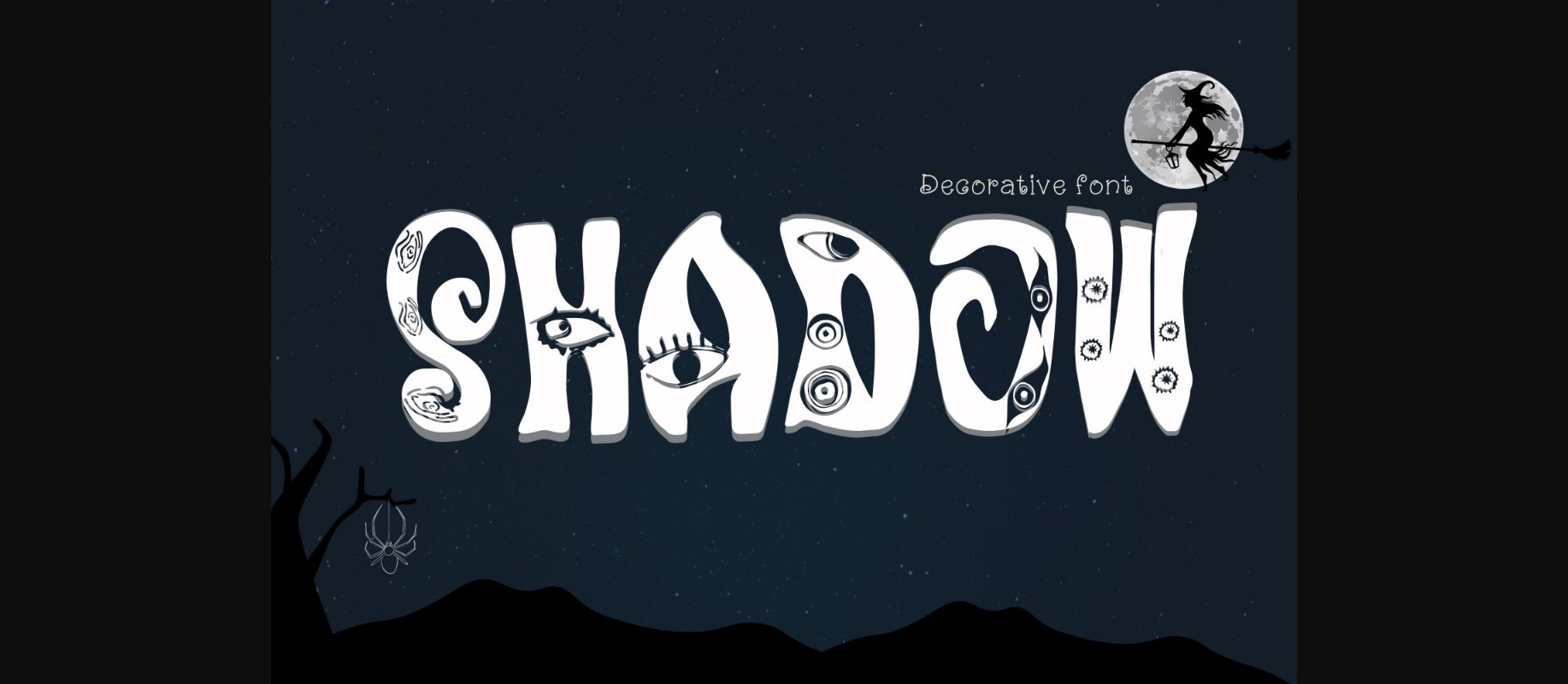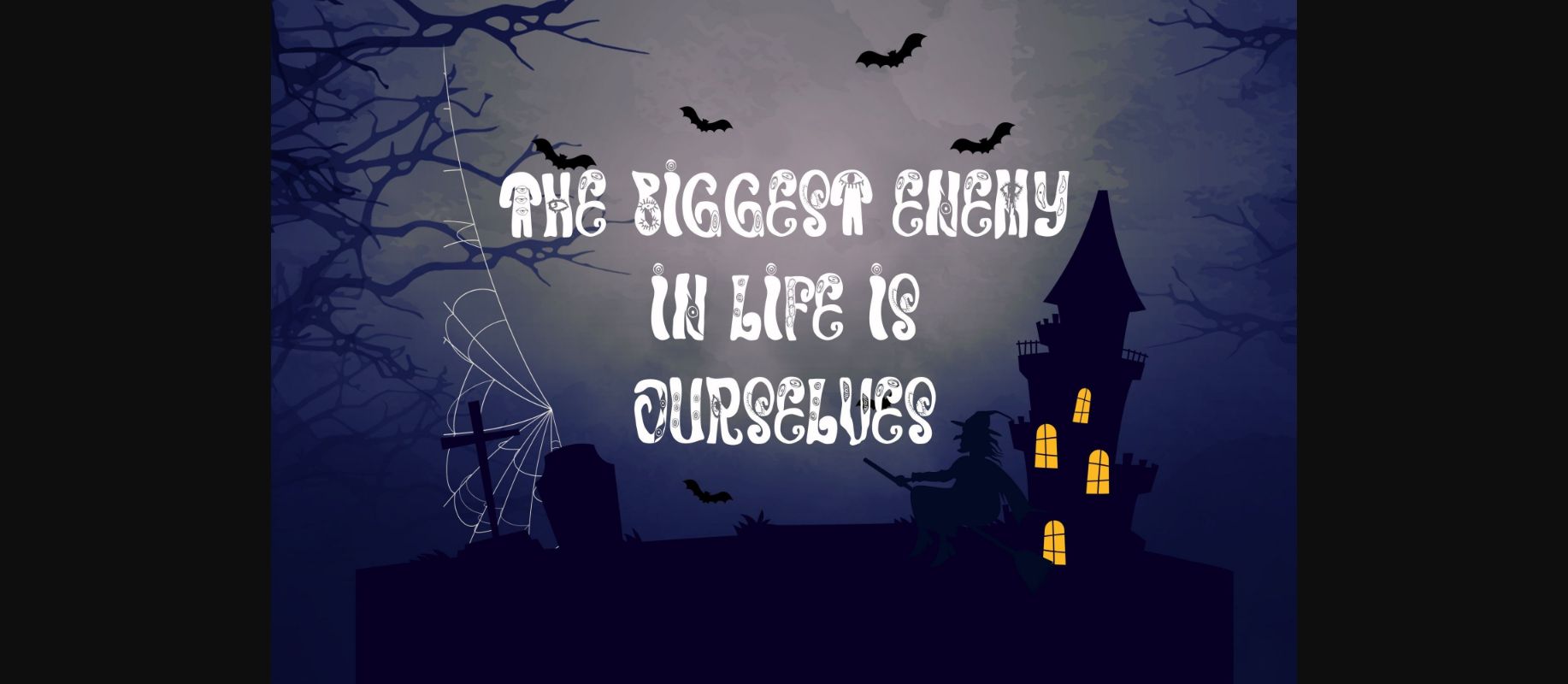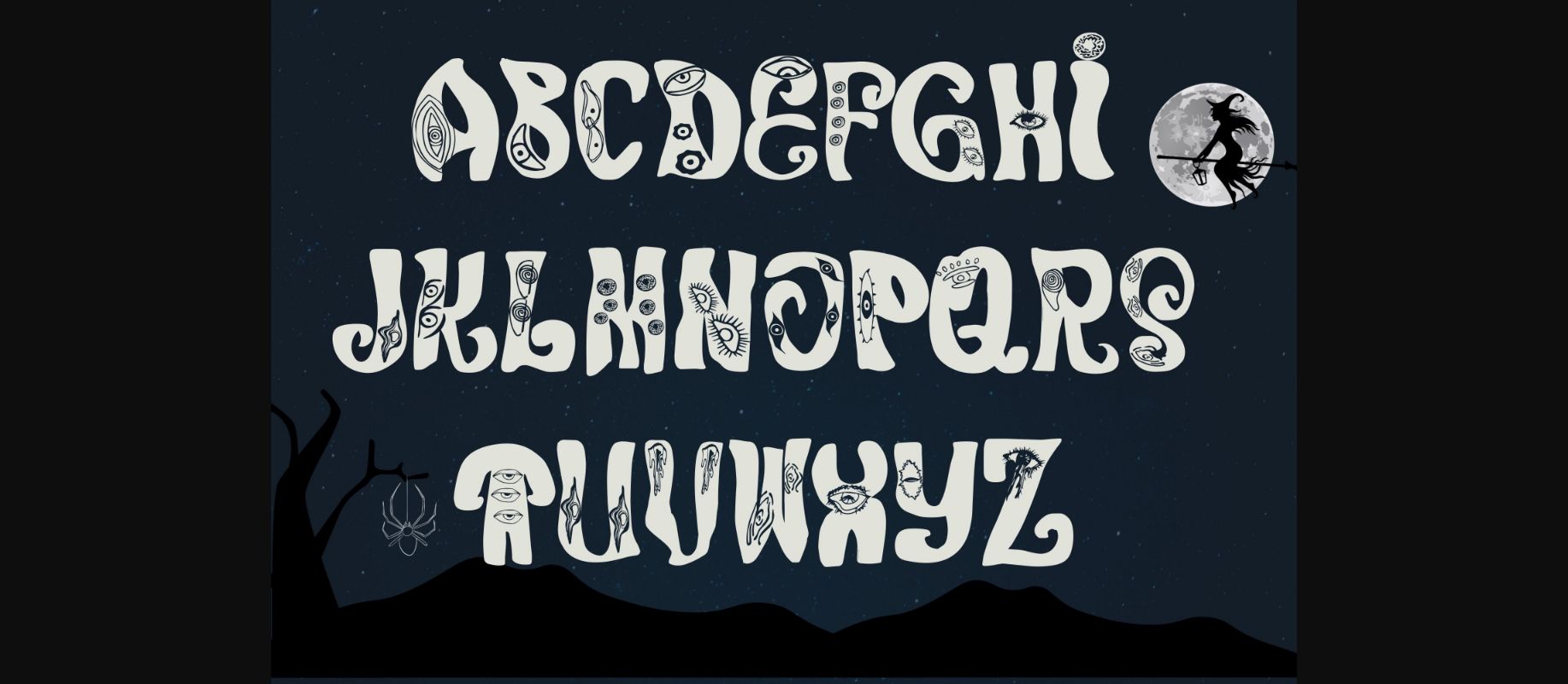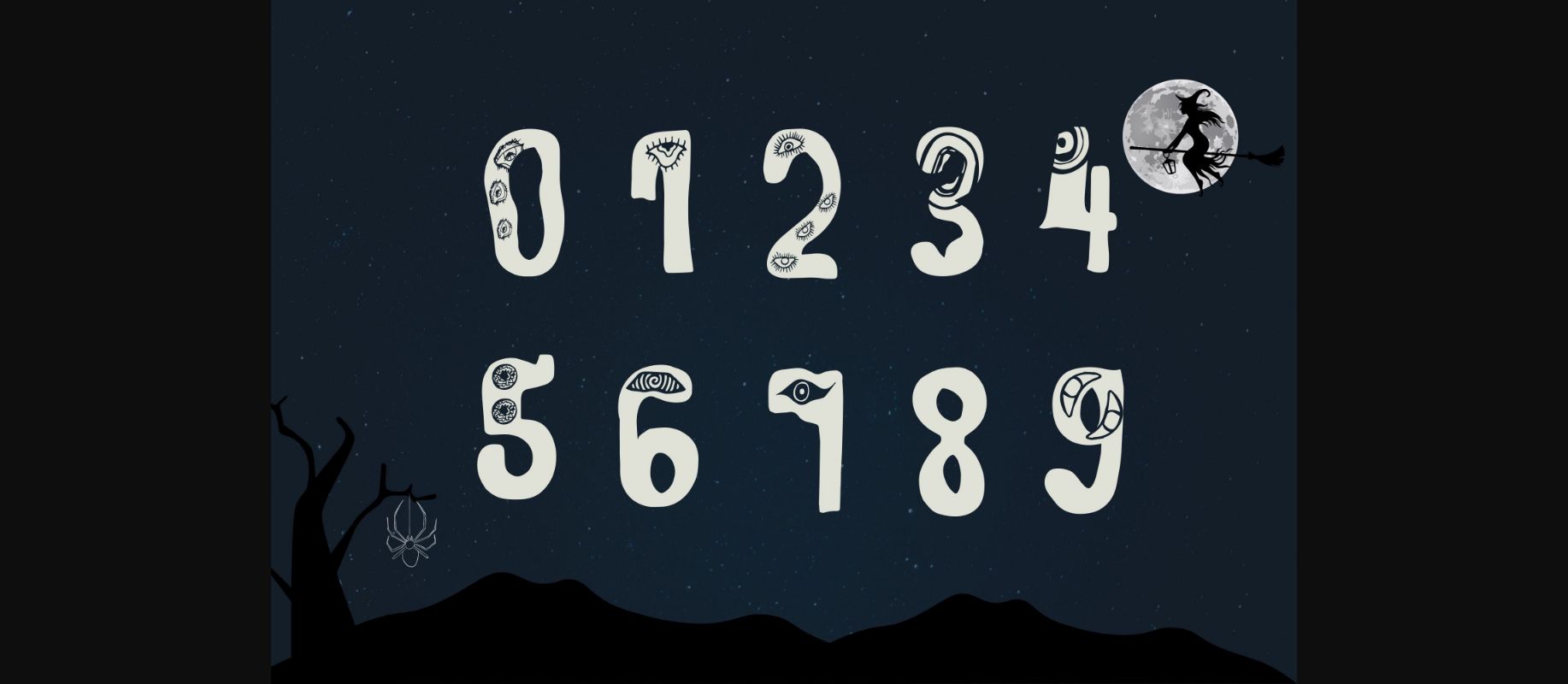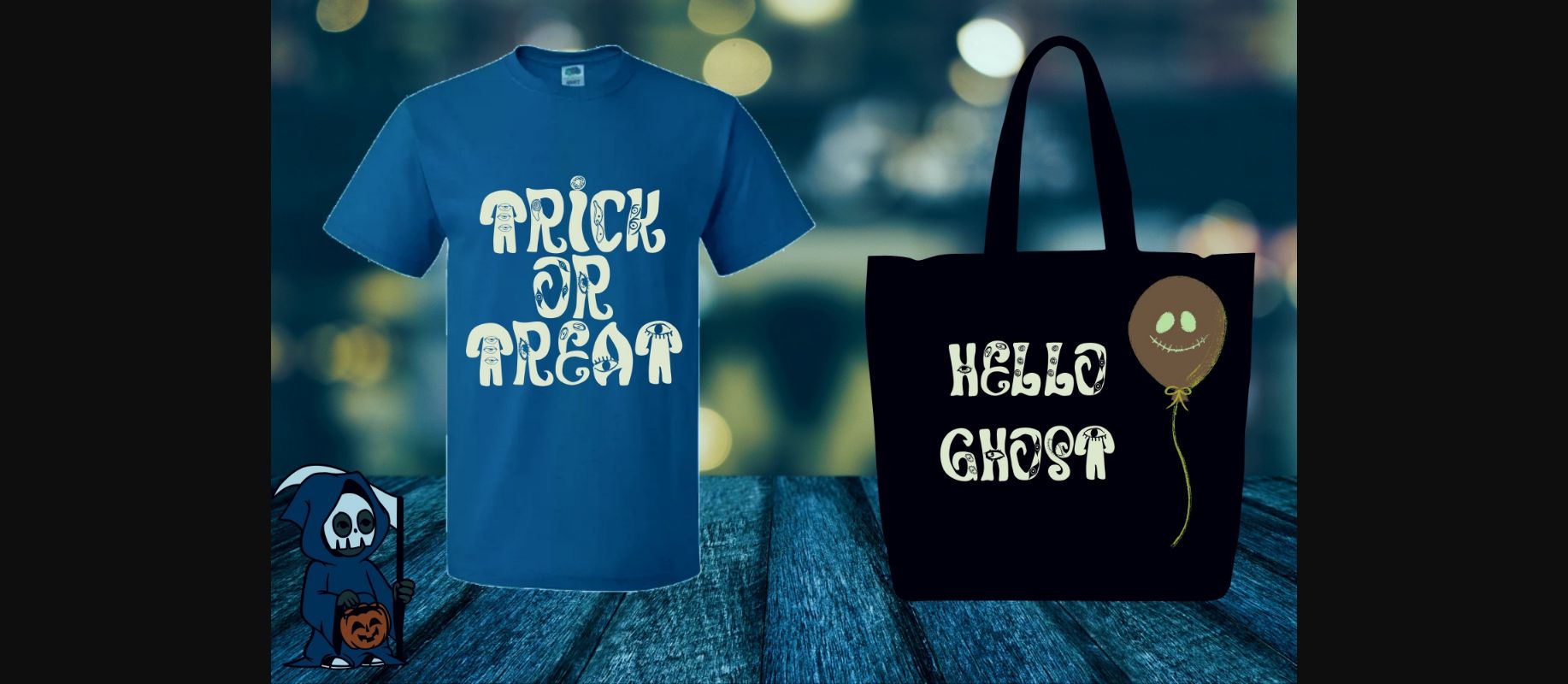
HomeDecorative FontsShadow Font Decorative Fonts Shadow Font FacebookXPinterestWhatsApp 1 of 7 ... Shadow Font Poster 2... Shadow Font Poster 3... Shadow Font Poster 4... Shadow Font Poster 5... Shadow Font Poster 6... Shadow Font Poster 7... About Shadow Font Shadow is a cool and creepy decorative font perfect for any Halloween-themed project! This font will be a wonderful asset to your font library, as it has the potential to enhance any creation. DOWNLOAD NOW People also explored Skyeeloft Font Good Mood Font Happy Labor Day Font Gunung Pring Font Next December Font Claudya Font Pasta Cheese Font Affilliatte Area Font Charlbury Script Font 267 0 TagsShadowShadow Font Previous articleLabrys FontNext articleBlood Font LEAVE A REPLY Cancel reply Comment: Please enter your comment! Name:* Please enter your name here Email:* You have entered an incorrect email address! Please enter your email address here Website: Save my name, email, and website in this browser for the next time I comment. Personal Use Free Propaganda Personal Use Free Read more about this font Machine House Personal Use Free Read more about this font Playground Clip Art Personal Use Free Read more about this font Lixdu Personal Use Free Read more about this font BLOG How to Cut Any Font on Cricut: Convert a Font to SVG (Free) Turn any font into a clean SVG so it cuts crisp on Cricut - a quick 3-step workflow using a free font-to-SVG tool. Modern Sans-Serif Fonts That Brands Love in 2025 To increase your work productivity, choose the most readable fonts. Free Fonts Risk: Why Free Fonts Can Be Dangerous for Designers